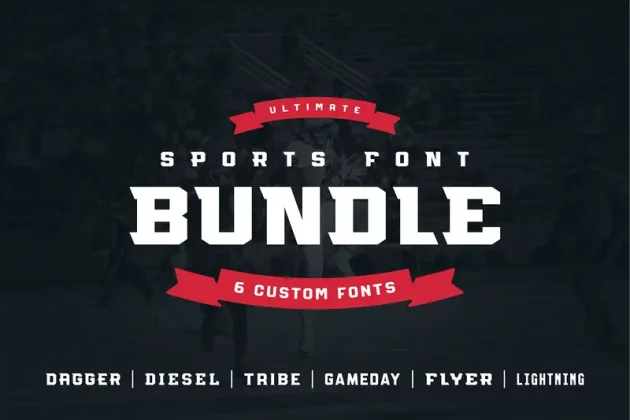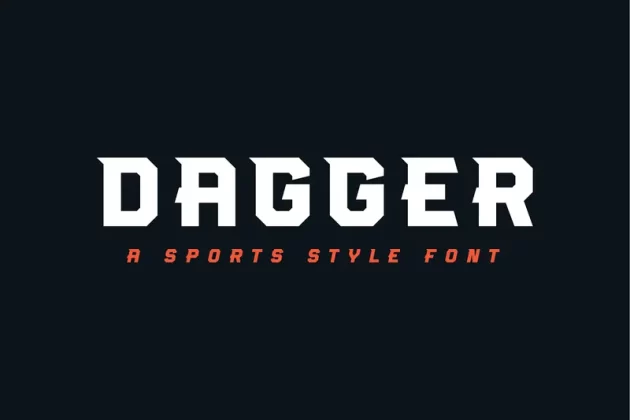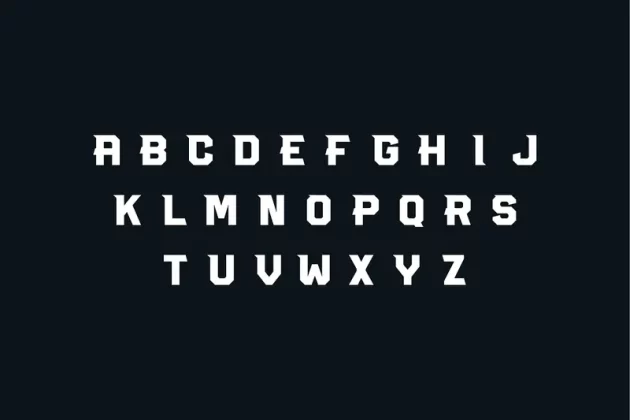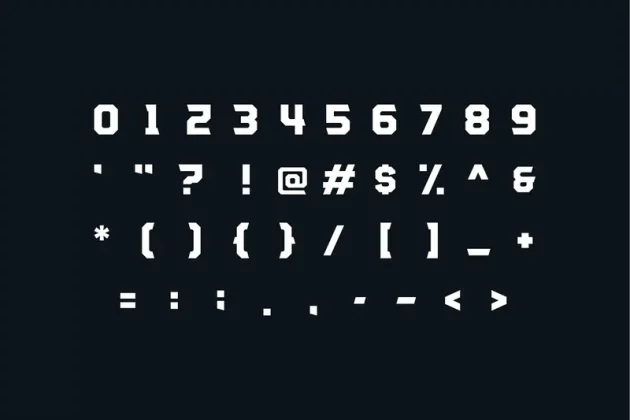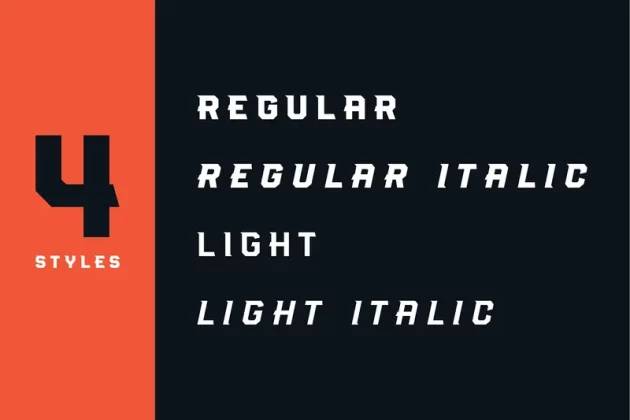
About Ultimate Sports Font Bundle Font
Studio One Four presents the Ultimate Sports Font Bundle. This bundle includes 6 custom made font families. Each font includes anywhere between 4-7 unique styles. This versatile range of sports fonts works well with sports branding, apparel design or anything that needs a typographic kickstart.
Dagger – A sharp and aggressive display font that comes in 4 styles.
Diesel – A slab serif font with dynamic characteristics which includes 6 styles.
Tribe – A versatile display font that come in 6 styles.
Gameday – An extremely versatile sans serif that comes in 5 styles.
Flyer – A sturdy, wide set serif font that comes in 5 styles.
Lightning – A sharp, condensed font that includes 7 styles.